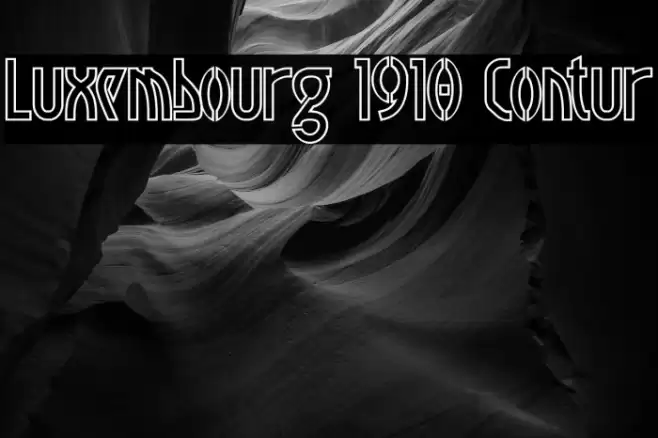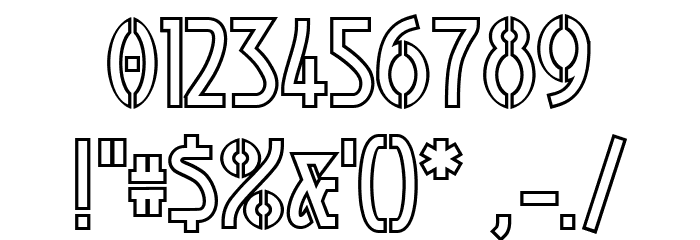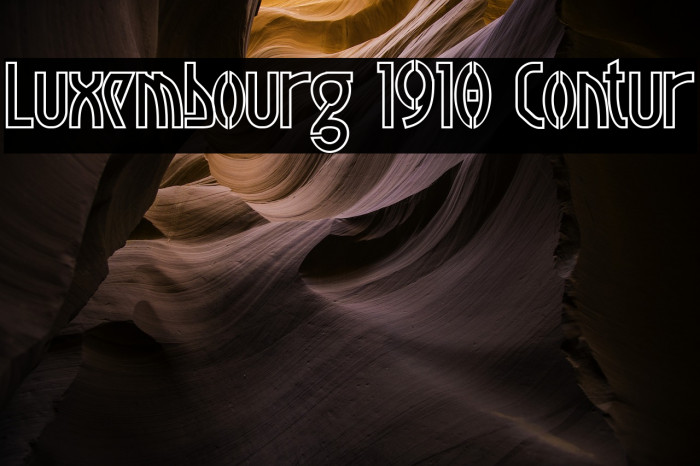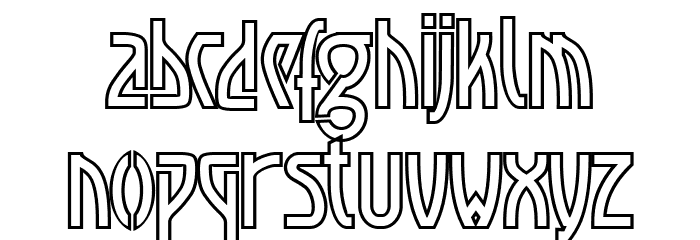
Luxembourg 1910 Contur Font
Luxembourg 1910 Contur Description
This font features a unique, decorative style with an outline design that gives it a distinct, artistic appearance. The characters are bold and geometric, with a modern flair that incorporates both sharp angles and smooth curves. The uppercase and lowercase letters maintain a consistent style, with the uppercase being slightly more angular. The numerals and special characters follow the same design principles, ensuring uniformity across the font. This font is ideal for projects that require a standout, eye-catching typeface.
A decorative, outline font with a bold, geometric style from Uncategorized fonts.